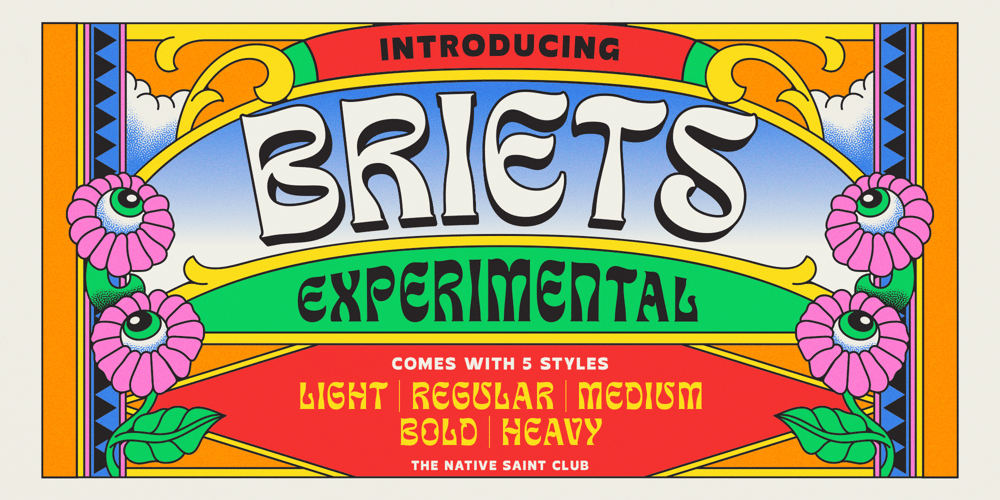
Briets Font Family was designed by Bagas Ferdiansah, Septianto Nugroho and published by The Native Saint Club. Briets contains 5 styles and family package options. TNSC Briets – a experimental font takes inspiration from the psychedelic era. Briets font family comes with 5 styles: Light, Regular, Medium, Bold & Heavy, it comes with Stylistic and ligature sets.